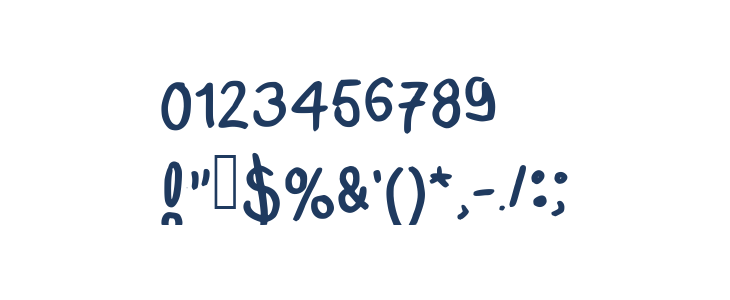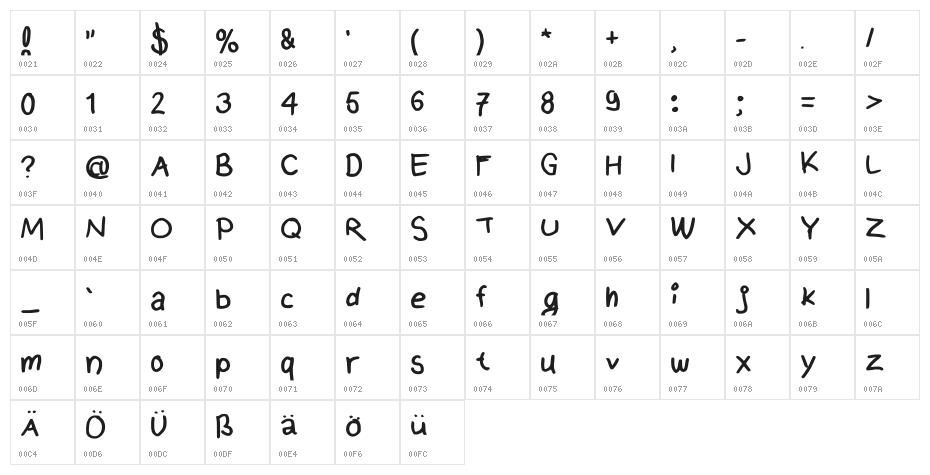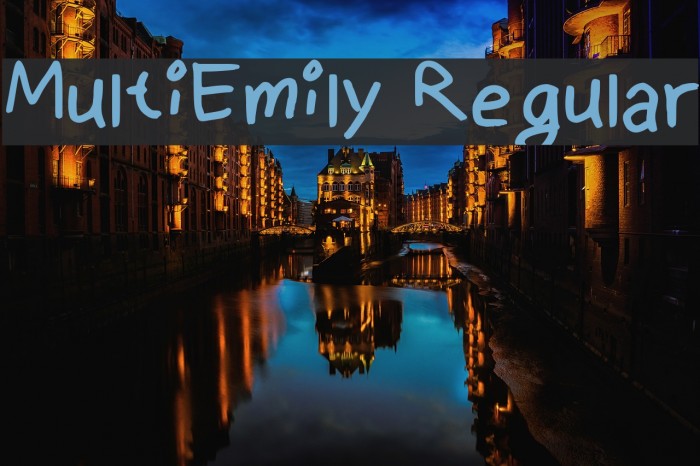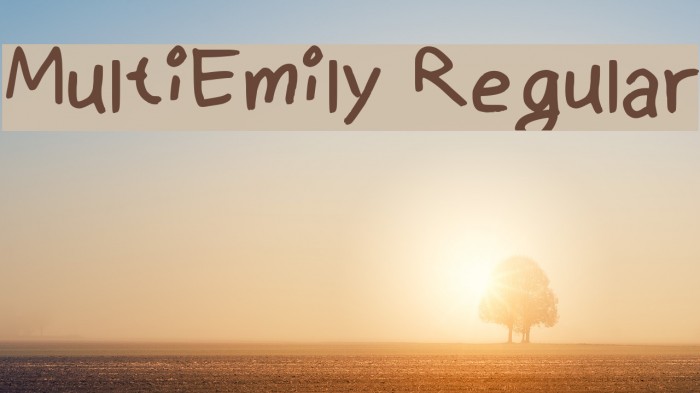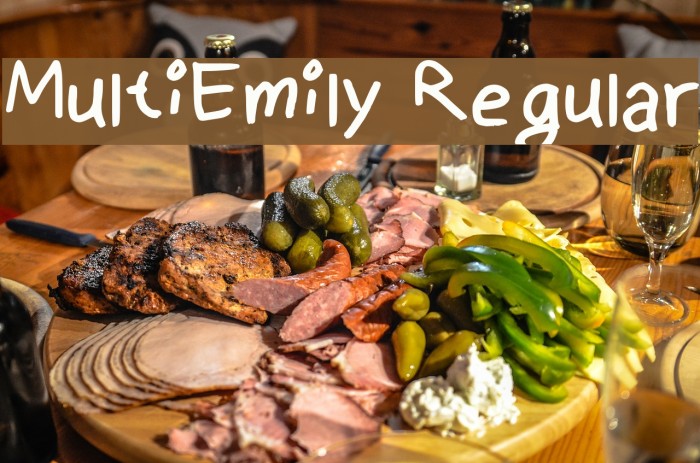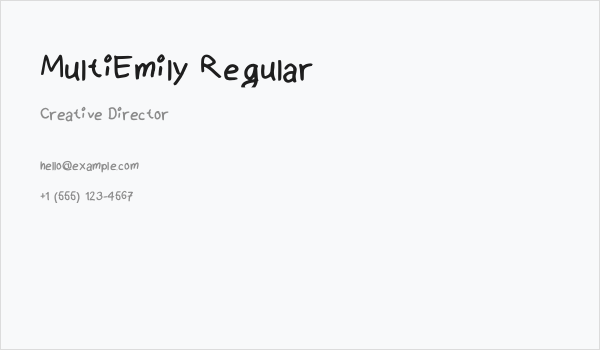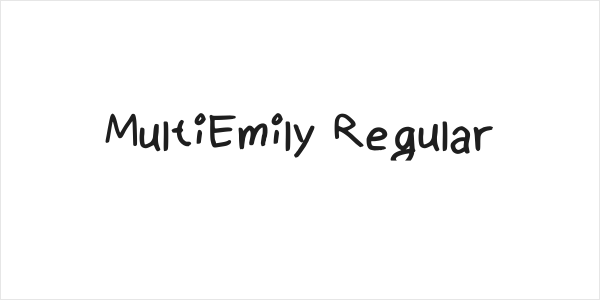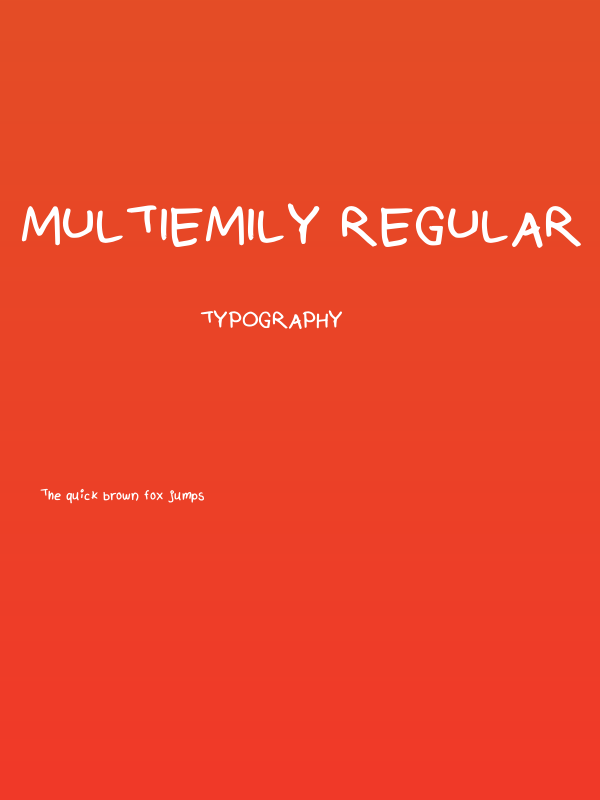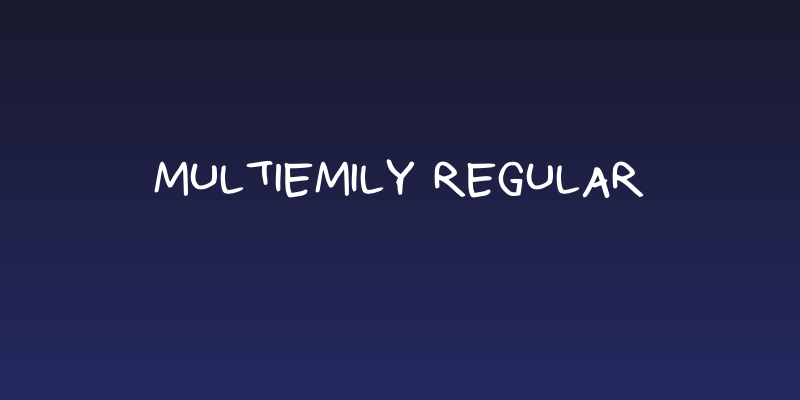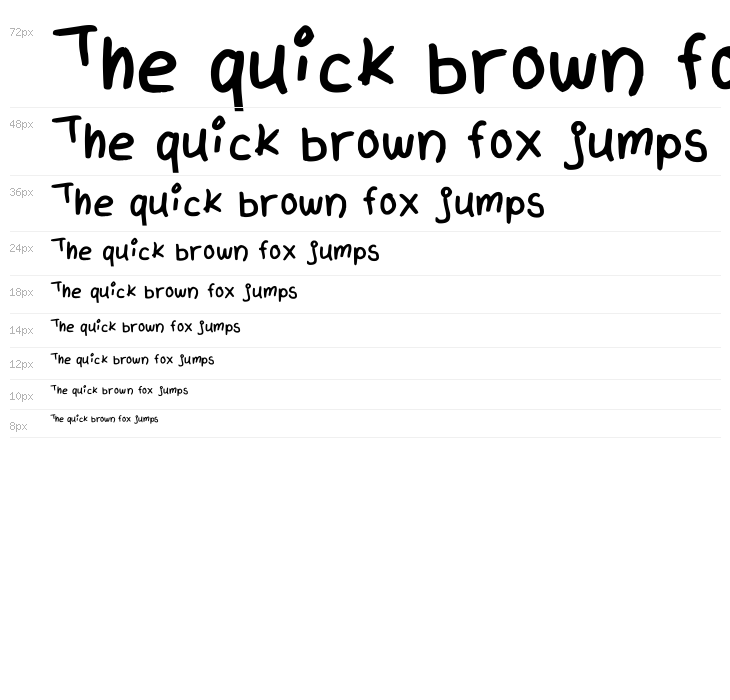
MultiEmily Regular Font
MultiEmily Regular Description
This font features a playful and informal handwritten style, characterized by its rounded and slightly irregular letterforms. The uppercase and lowercase letters maintain a consistent flow, with a casual and friendly appearance. The numbers and special characters are designed to match the overall whimsical aesthetic, making them suitable for creative projects. The strokes are moderately thick, providing a bold presence without being overwhelming. This font exudes a sense of approachability and creativity, perfect for projects that aim to convey a personal touch.
| Overall Style | Casual |
| Use Case | Headlines, Logos, Informal Text |
| Proposed Projects | Ideal for children's books, greeting cards, personal blogs, and creative branding. |